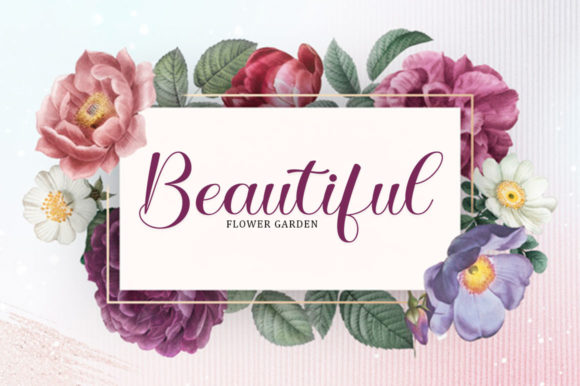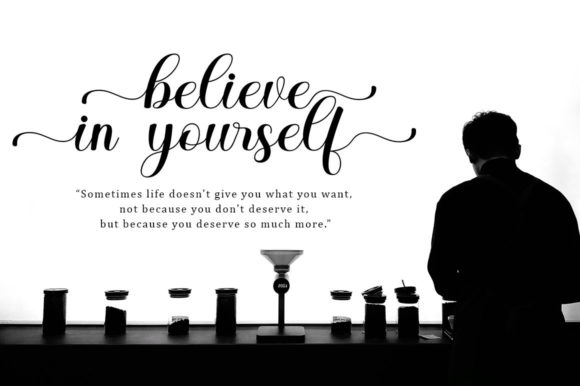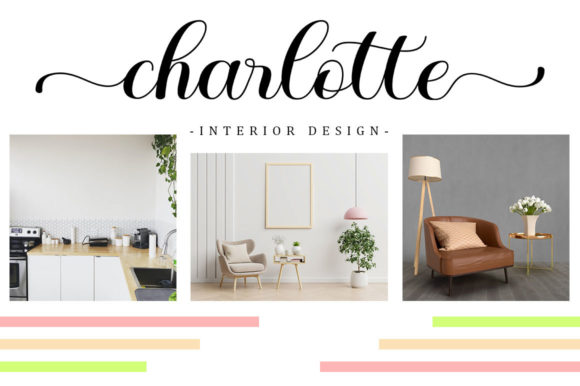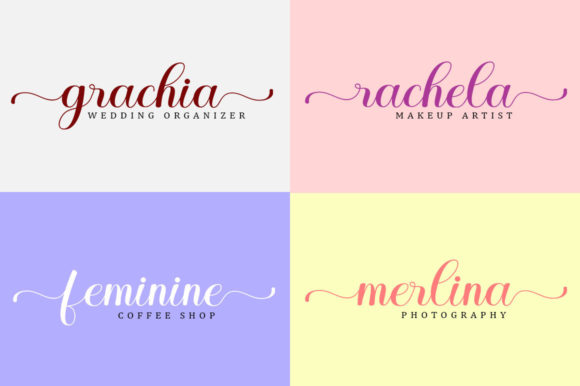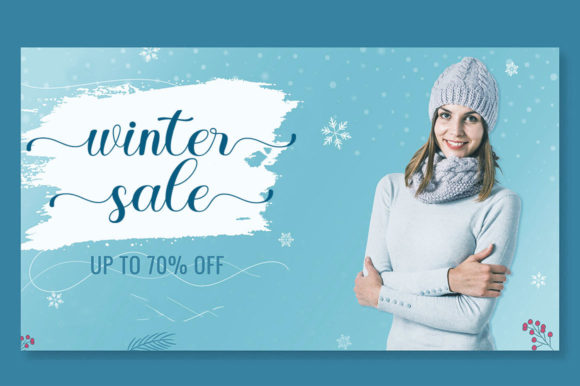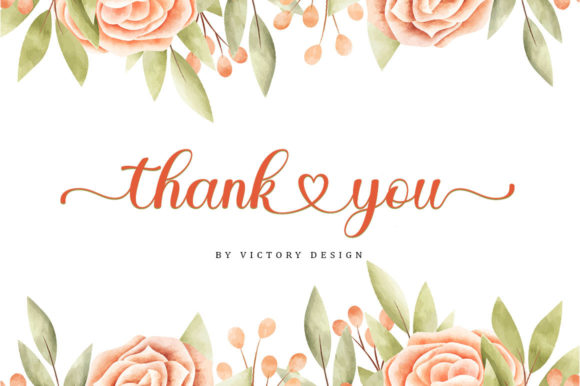
Unleash Your Creativity with the Perfect Handwritten Font
Have you ever stared at a blank page, your mind racing with ideas, but unable to put them into words? That’s where the magic happens – when the perfect font comes along and brings your vision to life. For designers and creatives, finding the right font can be the difference between a good project and a great one. That’s why we’re excited to introduce you to the Braylen Kelsey Font, a truly unique and masterfully designed handwritten font that’s sure to become a favorite.
This PUA encoded font is more than just a pretty face – it’s a powerful tool that allows you to access all of the glyphs and swashes with ease. Whether you’re working on a branding project, a wedding invitation, or a children’s book, the Braylen Kelsey Font has the potential to elevate your work to new heights. With its versatility and charm, it’s no wonder this font is a must-have for any designer looking to take their creative ideas to the next level.
Braylen Kelsey Font Key Features
- Unique Characteristics: The Braylen Kelsey Font features a unique blend of modern and classic elements, with intricate details and elegant lines, making it perfect for creative and artistic projects.
Braylen Kelsey Font Review
The Braylen Kelsey Font is a modern, elegant script font that could be perfect for designers looking for a sophisticated feel. Here are some of its notable features:
- ✨ Unique letter connections: The font features beautiful, flowing connections between letters, giving it a unique and personal touch.
- ✨ Versatility: It can be used for a wide range of designs, from wedding invitations to branding materials, and even book titles.
- ✨ OpenType features: The font supports OpenType features, which allows for advanced typography capabilities.
- ⚠️ Limited language support: The font may not support all languages, which could be a problem for designers working with non-English clients.
- ⚠️ Some letterforms may be difficult to read: While the font is elegant, some of the letterforms may be difficult to read, especially in smaller font sizes.
Overall, the Braylen Kelsey Font is a beautiful and versatile font that can add a touch of sophistication to any design. However, its limitations should be carefully considered before making a purchase.
The Braylen Kelsey font is ideal for creating elegant and sophisticated designs. Some common use cases include:
- Photography and art prints
For optimal results, use the Braylen Kelsey font in combination with high-quality images and a clean design aesthetic.